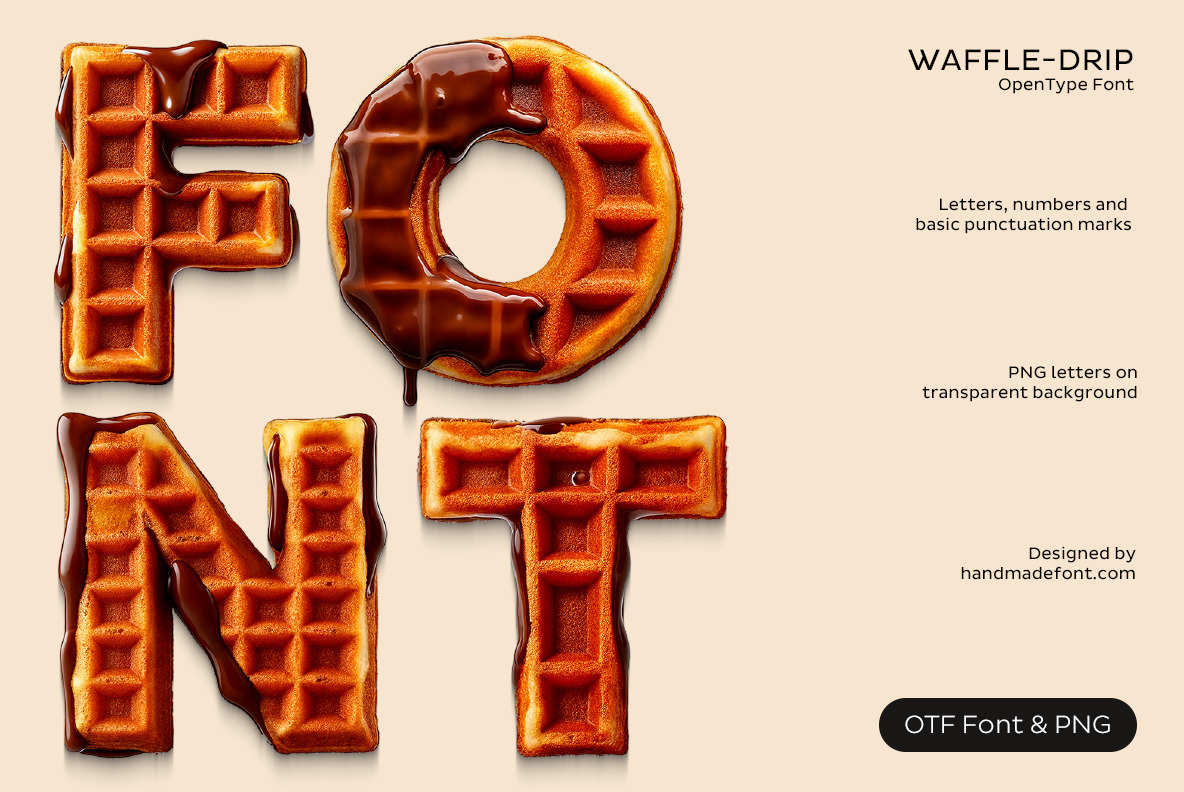
Waffle Drip Font
The Waffle Drip Font is a deliciously creative typeface that transforms typography into a sweet indulgence. Each letter is shaped like a golden waffle, perfectly crisp on the edges and topped with drips of rich, glossy chocolate. Fun, playful, and instantly appetizing, it’s ideal for bakeries, dessert branding, café menus, party invitations, or any design that wants to radiate warmth and joy. This font adds a tasty twist to ordinary text, making it feel cozy, inviting, and irresistibly fun. With its crispy texture and chocolate drizzle, Waffle Drip is a true treat for both the eyes and the imagination.
A high definition OpenType Font. Contains uppercase characters, numerals and basic punctuation. (Draw height roughly 800 pixels). All letters and glyphs that comprises this font you can see on the preview.
- Letters : A B C D E F G H I J K L M N O P Q R S T U V W X Y Z
- Numbers : 0 1 2 3 4 5 6 7 8 9
- Others : ! ? - . ' $ € % & #